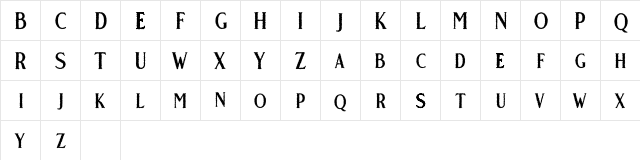
Gold Coast Free Rough Regular
| Foundry | Craft Supply Co |
Design Context for Gold Coast Free Rough Typeface
Gold Coast Free Rough embraces imperfection — its rough, textured character adds raw authenticity to designs that want to feel lived-in and unconventional.
A strong fit for alternative music projects, graffiti-adjacent design, and anything that deliberately resists polish.
Pro Tip: Use Gold Coast Free Rough at larger sizes where the texture and irregularity of each letterform can be clearly seen — it loses its character at small sizes.